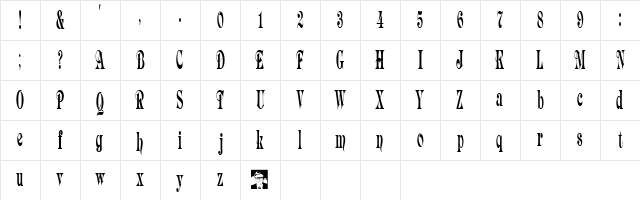
Aspen Plain Free Font
Aspen Plain
Design Context for Aspen
Aspen is a composed and adaptable typeface that performs quietly and consistently across a wide range of design contexts.